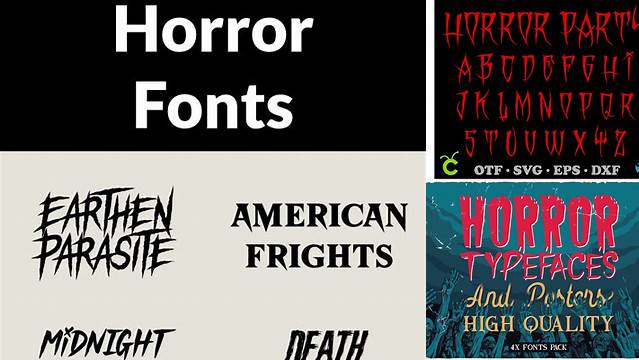
Scary Fonts In Word: Unleash Your Inner Horror
Hey guys! Are you ready to dive into the spooky world of horror fonts in Word? If you're looking to add a chilling touch to your Halloween invitations, creepy story manuscripts, or any project that needs a dose of fright, you've come to the right place. We're going to explore the best horror fonts that Word has to offer, how to use them effectively, and even where to find some extra-scary options. So, buckle up and let's get started!
What Makes a Font “Horror”?
Before we jump into specific fonts, let's understand what characteristics make a font scream “horror.” Think about the classic horror movie posters and book covers. What fonts do they use? Usually, they share some common traits:
- Distorted and Uneven: Horror fonts often have a distressed look, with irregular lines, jagged edges, and a sense of imperfection. This gives them an unsettling and organic feel, like something that's been scratched or etched into stone.
- Dripping or Bleeding: Some fonts mimic the look of blood dripping or ink bleeding, instantly conveying a sense of gore and dread. These are perfect for adding a visceral element to your design.
- Sharp and Angular: Sharp, pointy serifs and angular letterforms can create a sense of danger and menace. These fonts evoke images of knives, claws, and other sharp objects.
- Grunge and Texture: A gritty, textured appearance can add to the horror aesthetic, suggesting decay, age, and neglect. Fonts with a grunge effect feel like they've been weathered and worn, adding a layer of authenticity to your scary designs.
- Unconventional Shapes: Letters that are slightly misshapen or have unusual curves can be deeply unsettling. These fonts play with our expectations and create a sense of unease.
When you're choosing a horror font, consider the overall mood you want to create. Do you want something that's subtly creepy, or outright terrifying? The right font can make all the difference!
Top Horror Fonts Available in Word
Now, let's get to the fun part: exploring the horror fonts you can find right within Microsoft Word. While Word isn't exactly known for its vast font library of horror-themed fonts, you can still find some gems that will work in a pinch. Here are a few standouts, along with tips on how to use them effectively:
1. Arial Black:
Yes, you read that right! Arial Black, that seemingly mundane font, can actually be quite effective for horror designs when used correctly. Its heavy weight and blocky letters can create a sense of bold and imposing dread. Try using it for headlines or titles, and pair it with a distressed texture or a dark background to amp up the creepiness. Imagine Arial Black used for the title of a found-footage horror film – it has that blunt, unsettling quality. To really maximize the horror, experiment with adding a subtle blur or shadow effect in Word's formatting options. This can give the letters a slightly distorted look, as if they're fading into the darkness. You can also play with the character spacing, making the letters slightly tighter or looser to create a sense of unease. And don't forget about color! Using a dark, blood-red hue or a sickly green can instantly transform Arial Black into a font fit for a nightmare.
2. Courier New:
This monospaced font might seem like an odd choice, but Courier New's typewriter-like appearance can evoke a sense of old, unsettling documents. Think creepy letters, police reports, or the notes of a deranged killer. Use it for body text in your horror stories or to create a sense of found-footage authenticity. The key to using Courier New effectively is to embrace its simplicity and starkness. Don't try to dress it up too much; let its inherent dryness and formality speak for itself. Imagine seeing a ransom note typed in Courier New – the lack of ornamentation makes the message feel even more threatening. You can also experiment with adding imperfections, like smudges or ink blots, to enhance the vintage horror vibe. And consider using a slightly smaller font size to create a claustrophobic, text-heavy effect, as if the words are closing in on the reader. Pairing Courier New with a grainy, textured background can further amplify the sense of age and decay.
3. Times New Roman:
Another classic font, Times New Roman, can be surprisingly effective for subtle horror. Its traditional serifs can create a sense of unease when used in unexpected contexts. Try using it for a formal invitation to a sinister event, or for the title of a psychological thriller. The trick to making Times New Roman scary is to subvert its conventional appearance. Instead of using it for long blocks of text, try setting it in a large, imposing size for a headline. The contrast between the font's formality and the disturbing content can be deeply unsettling. You can also experiment with using a dark, saturated color, like a deep burgundy or a midnight blue, to add a touch of gothic horror. And consider playing with the letter spacing, making the letters slightly closer together to create a sense of claustrophobia. Imagine seeing a single word, like "Beware," set in large, dark Times New Roman – the simplicity of the font makes the message all the more chilling. Pairing it with a minimalist design and stark lighting can further enhance the effect.
4. Impact:
Impact is a bold and condensed sans-serif font that can convey a sense of urgency and danger. It's great for headlines or titles that need to grab attention and create a feeling of impending doom. Think of those movie posters with the giant, blocky title looming over the characters – that's the kind of effect Impact can achieve. To make Impact truly terrifying, focus on its starkness and power. Use it in large sizes, and don't be afraid to let it dominate the design. Experiment with using a harsh, contrasting color palette, like black and red, to amplify the sense of danger. You can also add a subtle grunge texture or a slight blur to give the font a more distressed look. Imagine seeing the word "Run!" set in huge, blood-red Impact – the font's boldness and simplicity make the message instantly impactful. And consider using it in conjunction with a strong visual element, like a silhouette or a shadowy figure, to create a truly chilling composition. The key is to let Impact's inherent strength speak for itself, without overcomplicating the design.
5. Georgia:
Like Times New Roman, Georgia is a serif font that can be used for subtle horror. Its elegant letterforms can create a sense of sophistication with an underlying darkness, perfect for stories with a gothic or Victorian setting. Think of those old, leather-bound books with unsettling tales hidden within their pages – Georgia can evoke that same feeling. The secret to using Georgia for horror is to play with its elegance and hint at something sinister lurking beneath the surface. Use it for the body text of a story, and let the reader gradually become aware of the horror unfolding. You can also experiment with using a slightly smaller font size to create a sense of intimacy and unease. Consider pairing Georgia with a muted color palette, like sepia tones or dusty blues, to enhance the vintage feel. And don't be afraid to leave plenty of white space around the text, allowing the words to breathe and creating a sense of isolation. Imagine reading a chilling diary entry set in Georgia – the font's refined appearance makes the disturbing content all the more unsettling. You can also add subtle imperfections, like faded ink or slight smudges, to further enhance the sense of age and decay. The key is to use Georgia's inherent elegance to create a sense of contrast and unease, hinting at the darkness within.
Finding More Horror Fonts
So there you have it, guys! A comprehensive guide to using horror fonts in Word. Remember, the right font can transform your project from mundane to macabre. Whether you're working on a Halloween invitation, a creepy story, or a terrifying poster, the tips and fonts we've discussed will help you create something truly chilling. Now go forth and scare the world with your newfound font knowledge!